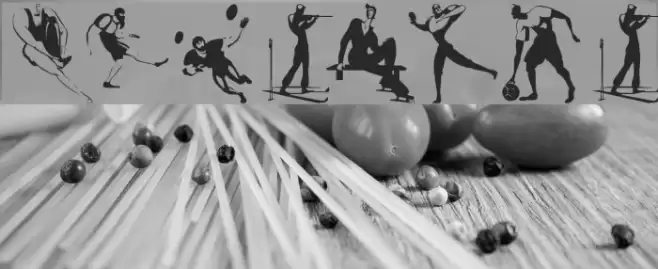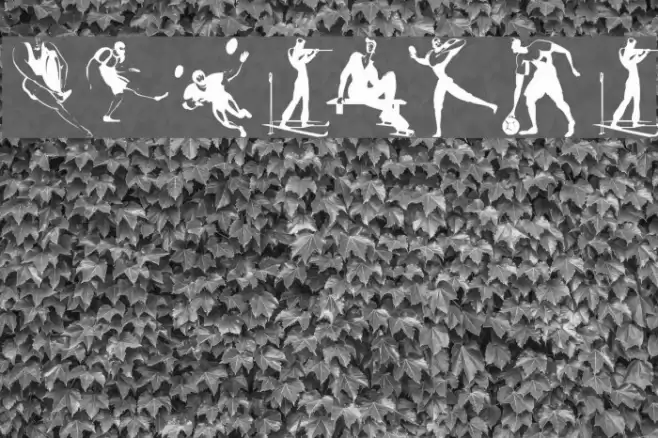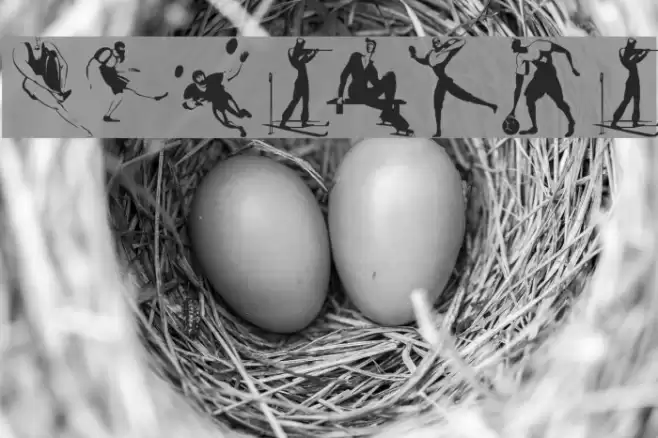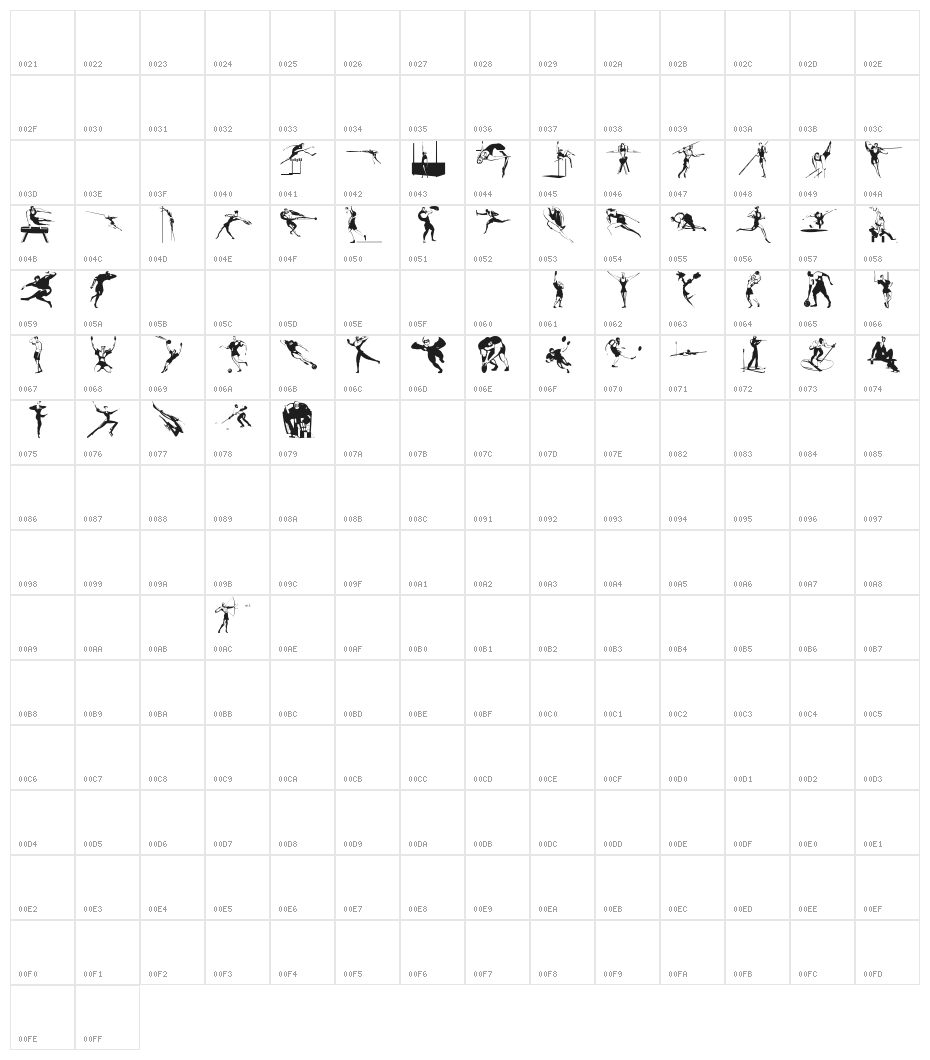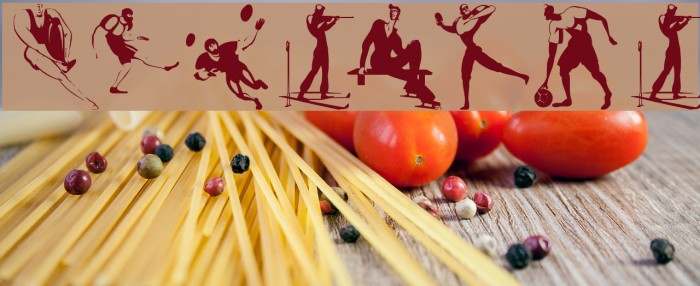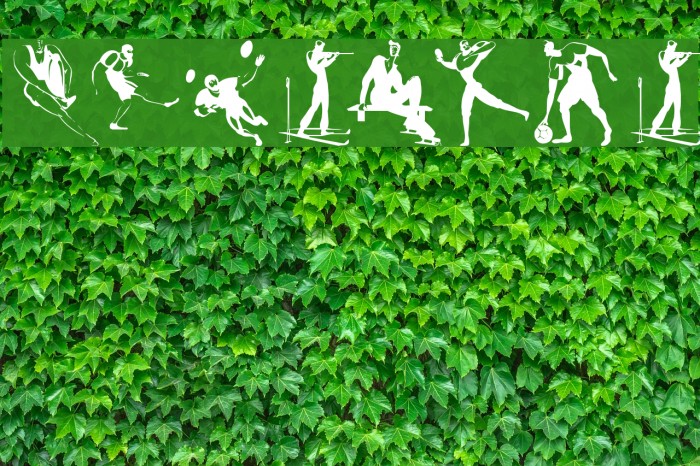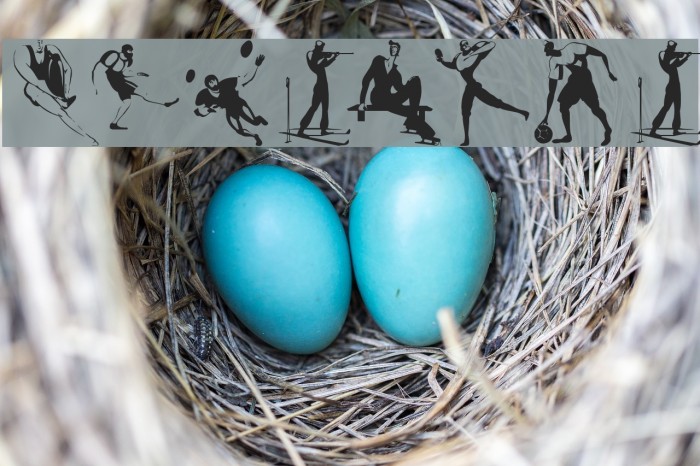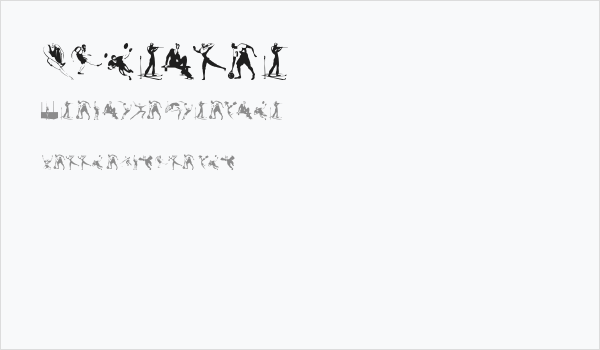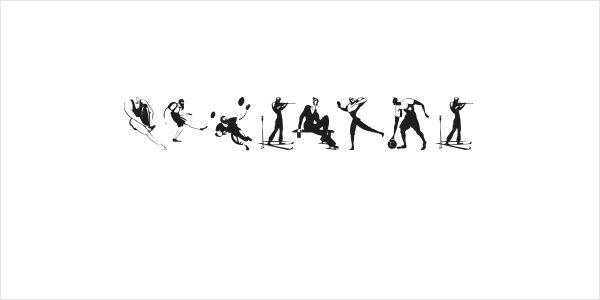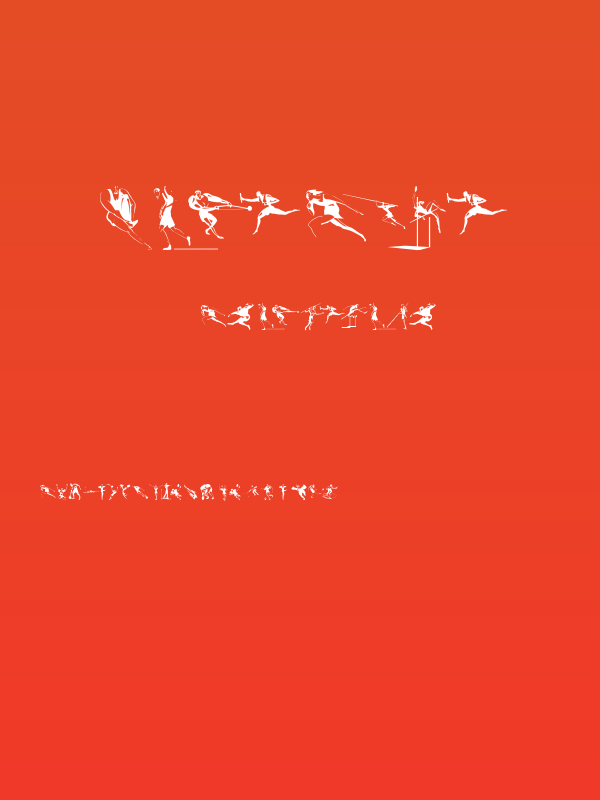
Sportler Font
Sportler Description
A decorative display font composed of dynamic, stylized silhouettes of athletes in various sports poses, with each character represented by a unique sporting action. The figures are expressive, energetic, and rendered in bold black shapes, emphasizing movement and athleticism.
Energetic display font featuring athletic silhouettes as characters from Uncategorized fonts.
- Proposed Projects: Sports posters, event branding, children's activity books, athletic apparel design, themed invitations.
- Overall Style: Decorative, Energetic, Thematic
- Use Case: Headlines, Logos, Posters, Themed graphics